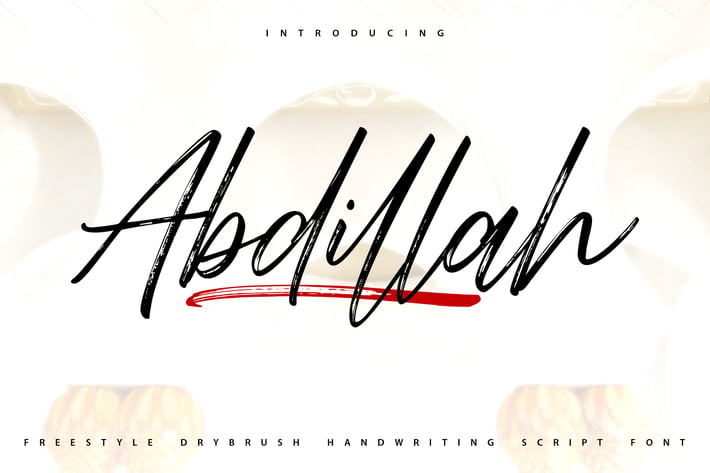
Abdillah | Handwriting Script Font
Abdillah | Handwriting Script Font with a calligraphy style, So beautiful on invitation like greeting cards, branding materials, business cards, quotes, posters, and more!